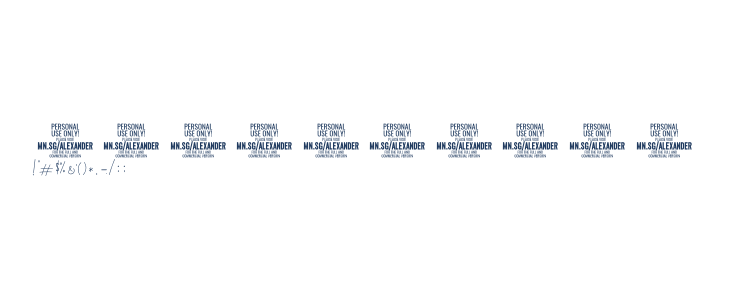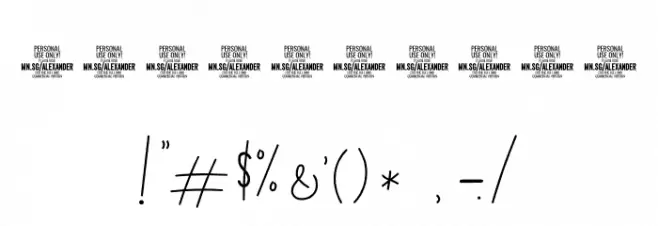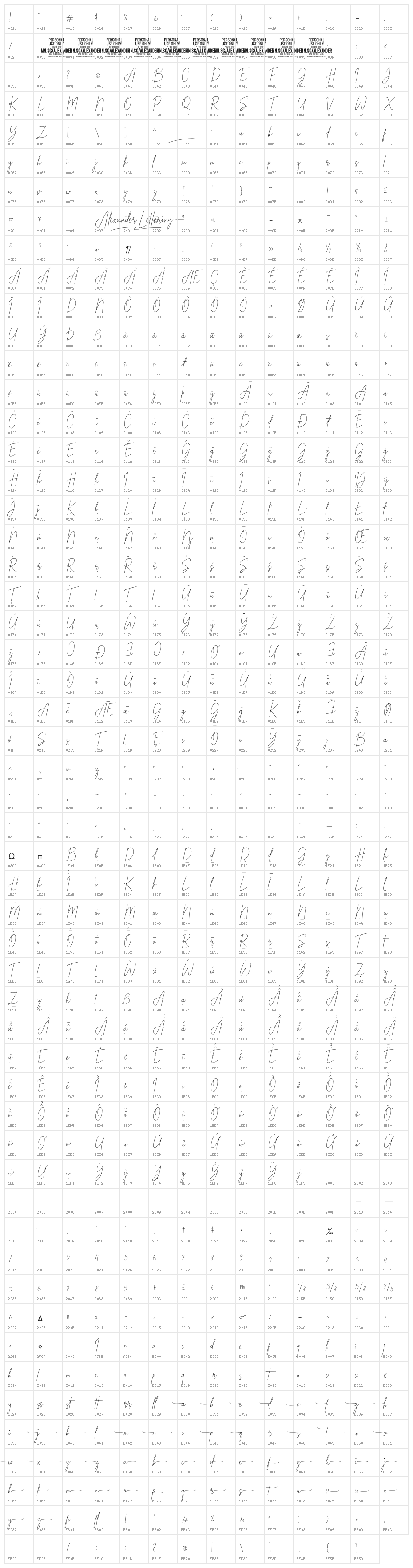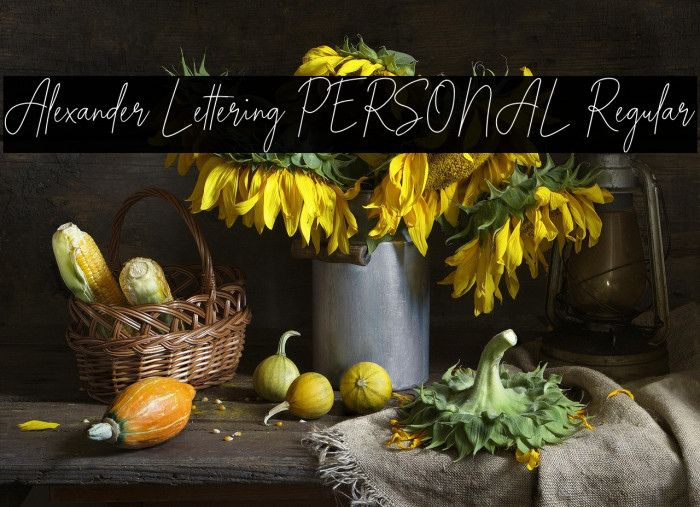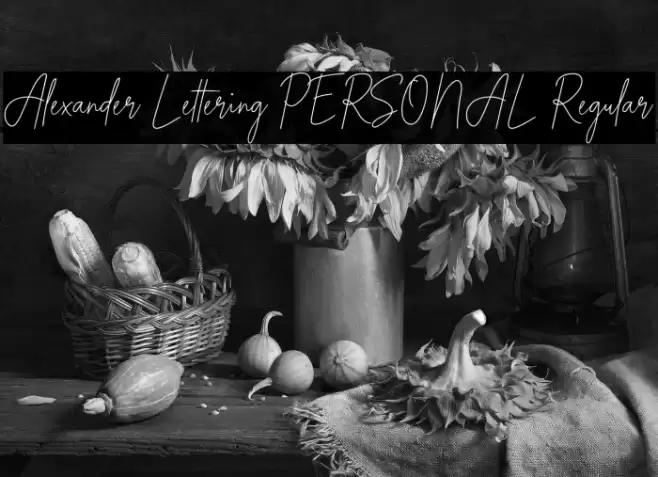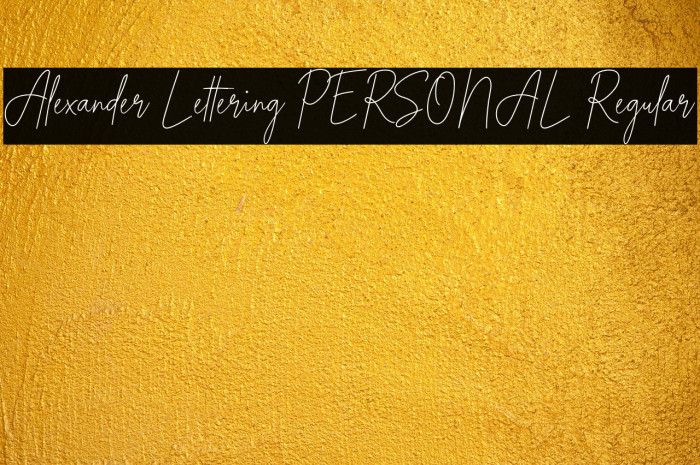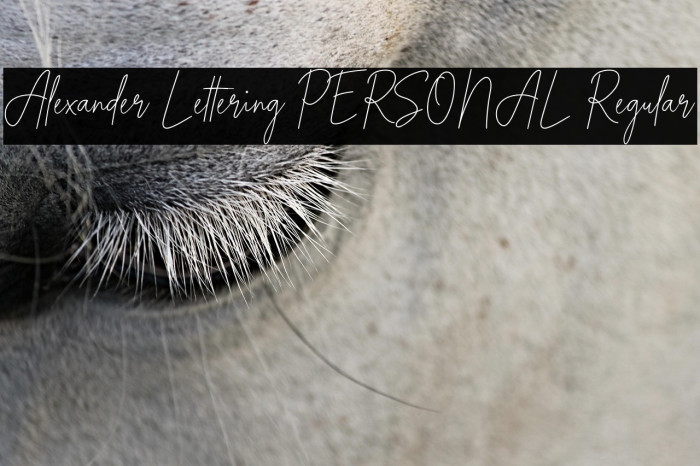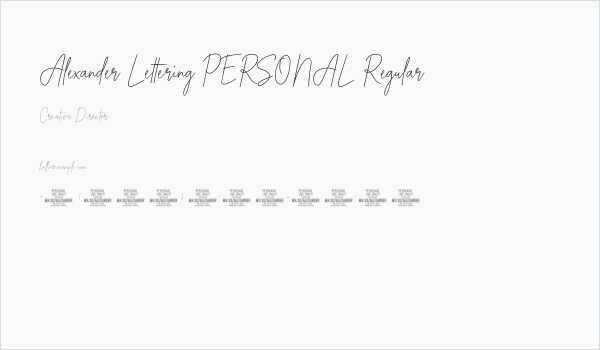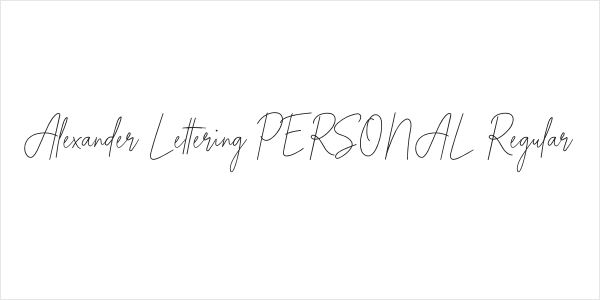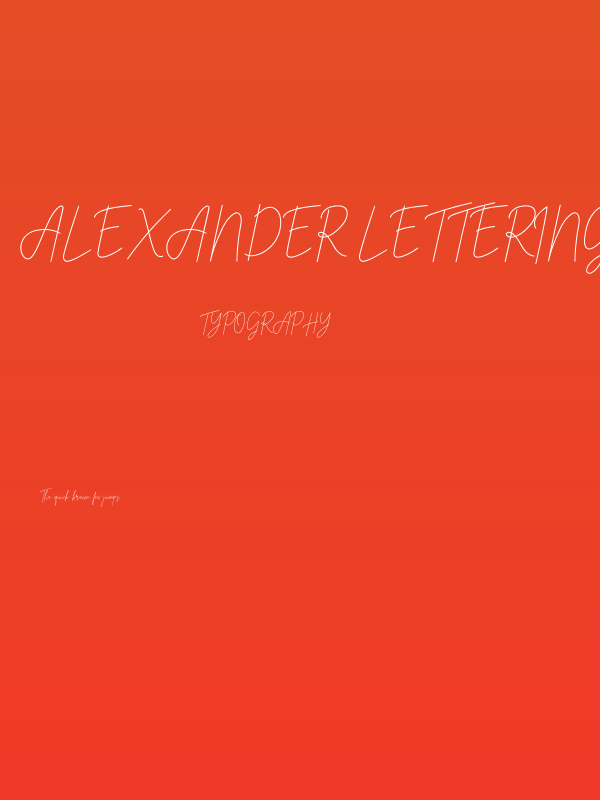
Alexander Lettering PERSONAL Regular Font
Alexander Lettering PERSONAL Regular Description
This font features a delicate and elegant handwritten style, characterized by its flowing and connected letterforms. The uppercase letters exhibit a graceful, elongated appearance with subtle curves, while the lowercase letters maintain a consistent fluidity that enhances readability. The numerals and special characters are crafted with the same attention to detail, ensuring a cohesive look across all text. This font's thin strokes and slight slant give it a sophisticated and modern feel, making it suitable for a variety of design applications.
| Proposed Projects | Ideal for wedding invitations, personal branding, greeting cards, and elegant stationery. |